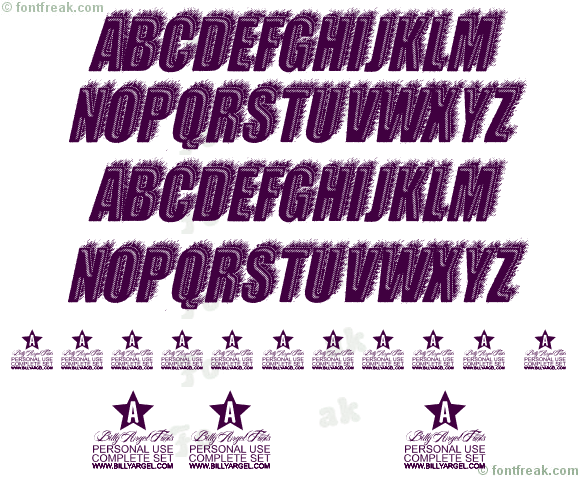
CRUMB ITALIC PERSONAL USE Bold Italic
The CRUMB ITALIC PERSONAL USE Bold Italic font by Billy Argel Fonts is a striking display typeface that captures attention with its unique design. This font falls under the decorative category, characterized by its bold and italicized strokes that convey a sense of movement and dynamism. The visual characteristics include a heavy stroke weight complemented by a textured appearance, giving it a rugged yet stylish look. The contrast between the thick and thin parts of the letters adds depth, while the slightly condensed spacing enhances legibility without compromising on flair.
This versatile font is ideal for a variety of creative projects. It works beautifully for wedding invitations, adding a touch of elegance and personality. Movie posters can benefit from its bold presence, making titles stand out against dynamic backgrounds. For restaurant menus, CRUMB ITALIC PERSONAL USE Bold Italic provides a unique flair that can elevate the overall dining experience, enticing patrons with its artistic style. Additionally, this font is suitable for branding materials, such as logos and promotional graphics, where a distinctive and memorable impression is essential.
The target audience for this font includes graphic designers seeking to infuse creativity into their projects, small business owners looking for a standout typeface to represent their brand, and content creators who want to make their work visually compelling.